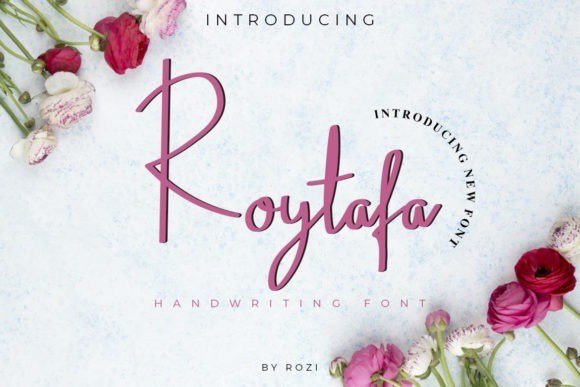
Roytafa Handwritten Font
Introducing the new stylish Roytafa Font, a beautiful modern signature script perfect for creating incredible Logo designs, branding stationery, wedding invitations, Instagram posts/stories and much much more!